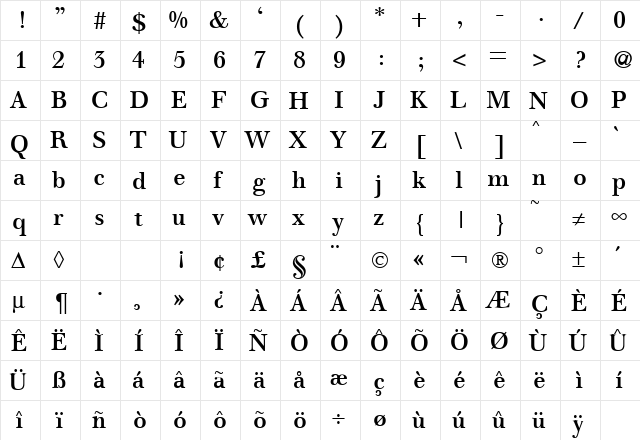
WalbaumOriginal Bold
Design Context for WalbaumOriginal Typeface
WalbaumOriginal is a composed and adaptable typeface that performs quietly and consistently across a wide range of design contexts. The heavy weight commands attention and anchors typographic hierarchies.
Pro Tip: Use WalbaumOriginal in both headline and body roles to test its range before committing to a single application.